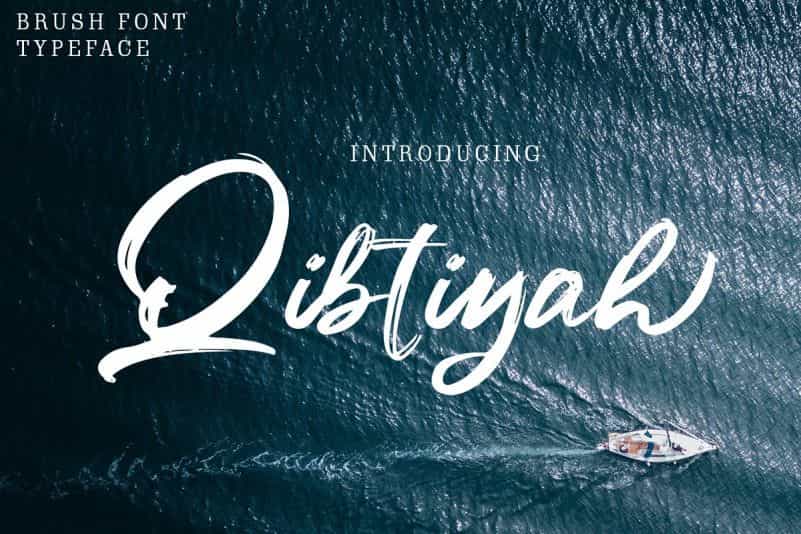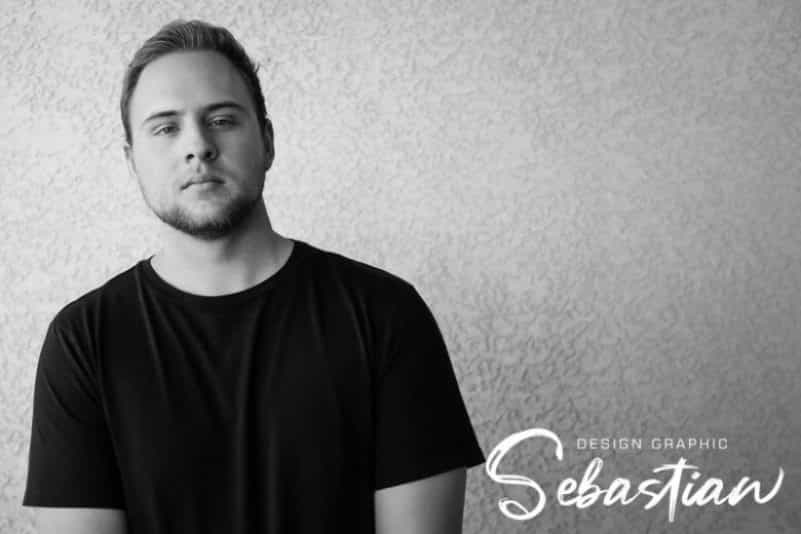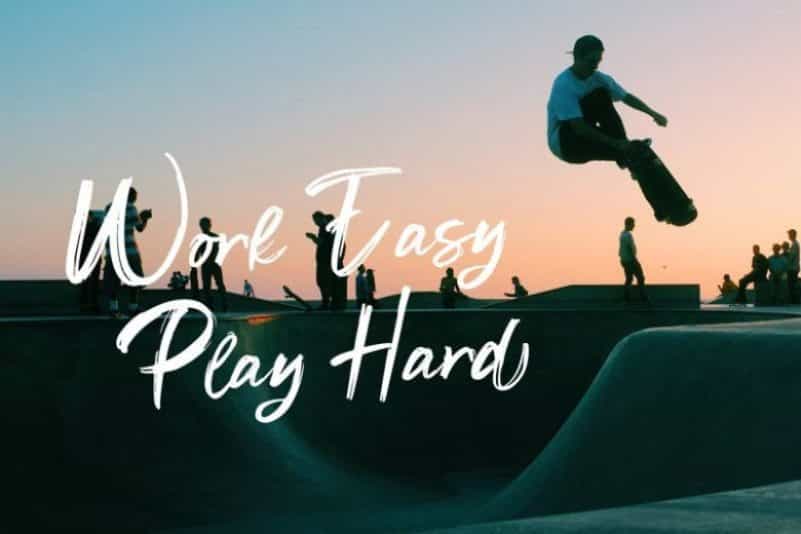
Discover Qibtiyah Font, part of the Brush collection—a versatile and unique font perfect for adding a personal touch to your projects. Download it for free and enjoy crafting designs with style, from invitations to social media posts. This font is available exclusively for personal use, giving you the freedom to create without limits. Unlock your creativity with Qibtiyah Font today!
Qibtiyah Font is one of the brush style font that is created in a handmade way and the characters of this font are very stunning. Perfect for logos, nameplates, quotes, product labels, merchandise, social networks & greeting cards. It has all the lowercase & uppercase characters, a vast assortment of symbols, numbers, and compatibility with other languages.